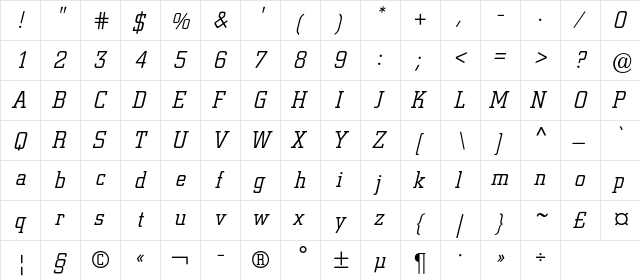
ColiseumLightC Italic
Design Context for ColiseumLightC Typeface
ColiseumLightC is a composed and adaptable typeface that performs quietly and consistently across a wide range of design contexts. Its italic angle brings a sense of urgency and motion to the letterforms. Its slender proportions lend an understated elegance to any composition.
Pro Tip: Use ColiseumLightC for emphasis, pull quotes, and subheadings where its slanted energy can add rhythm to the layout.